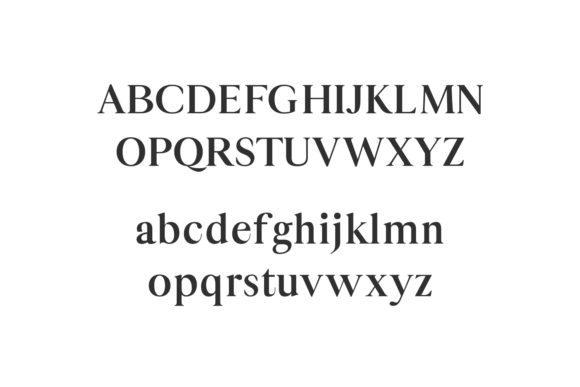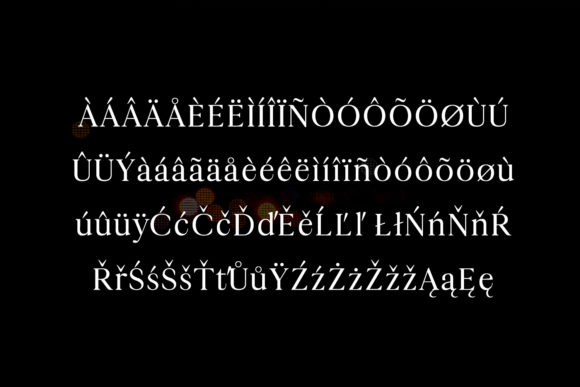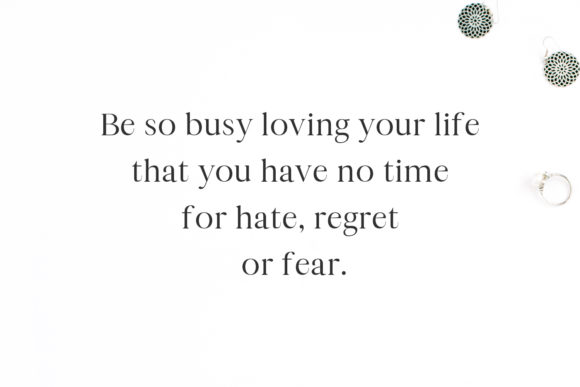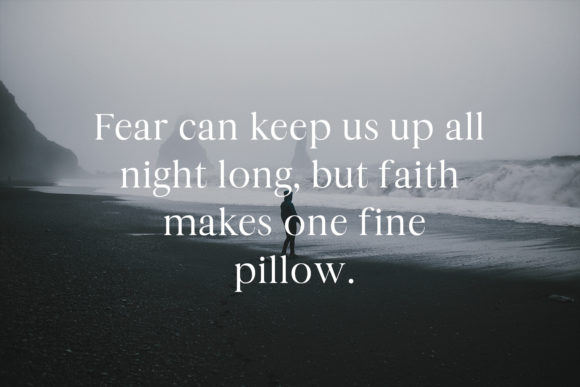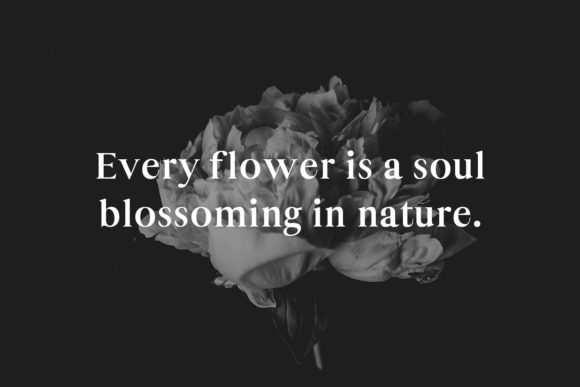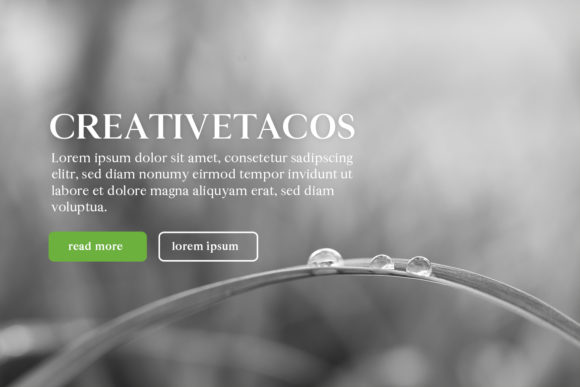
Introduction to Maiah Family Font
The Maiah is a modern and minimalist serif family which will add charm into your designs.
It comes with 4 weights: regular, thin, light and bold, which can be combined perfectly It can be used for headlines, posters, branding, packaging, presentations, logo, quotes, titles, magazines headings, web layouts, advertising, invitations, packaging design, books, and nearly any other creative design.
Key Features of Maiah Family Font